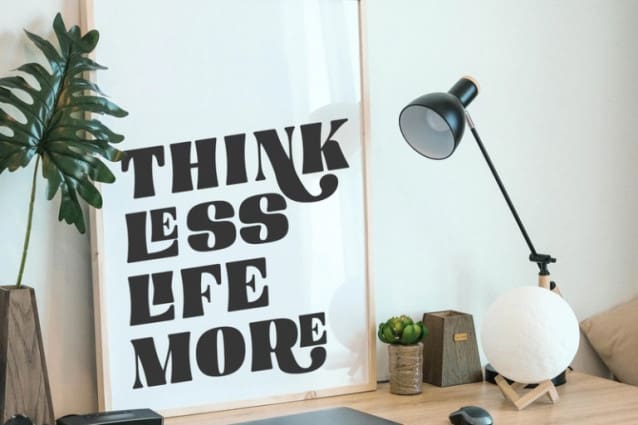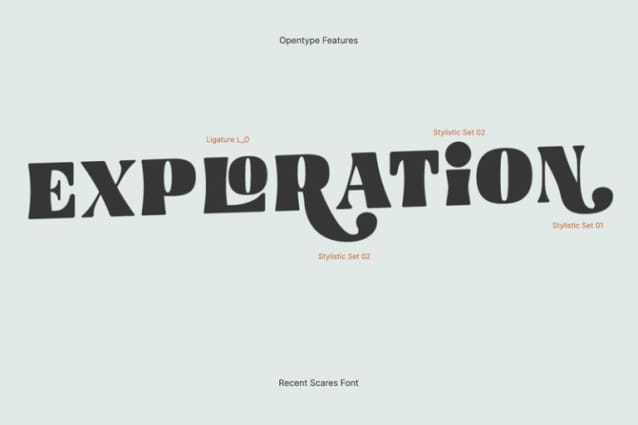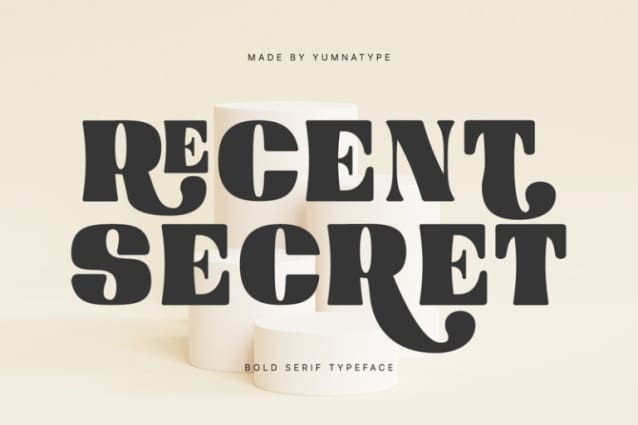
Recent Secret Font
Recent Secret Font is a bold and commanding serif font that whispers tales of mystery and sophistication. Crafted in capital letters with a bold weight, this font demands attention while retaining an air of intrigue. Each letter is meticulously shaped with a slight roundness, adding a touch of softness to its otherwise strong and assertive presence.
With visible contrast between thick and thin strokes, Recent Secret exudes elegance and confidence. The contrast enhances legibility and ensures that every character stands out with clarity and impact. Despite its bold weight and strong appearance, Recent Secret maintains a sense of refinement and subtlety.